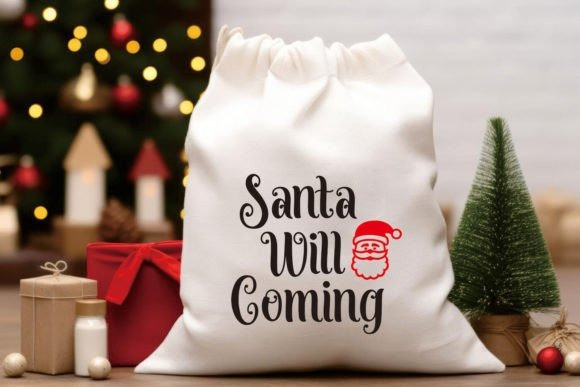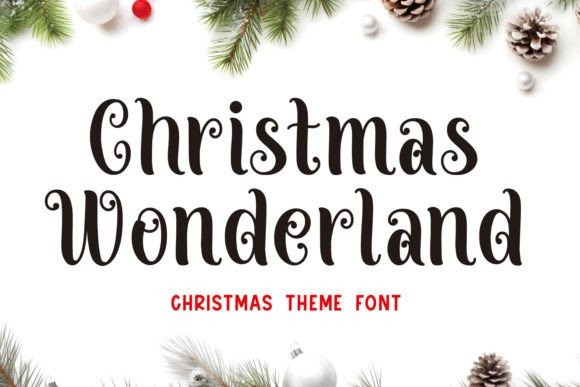
Christmas Wonderland Font is a delightful font designed to infuse charm and festive spirit into your holiday-themed projects. With its cute and whimsical style, this font captures the essence of Christmas, making it perfect for various occasions such as Christmas celebrations, winter holidays, Thanksgiving, and festive crafting endeavors. Whether you’re creating festive banners, embroidery designs, or personalized decorations, Christmas Wonderland font adds a delightful flair to your work.